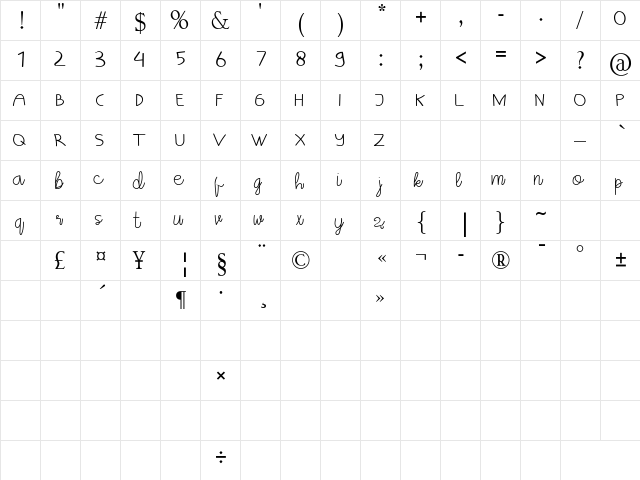
Sappire Regular
Design Context for Sappire Typeface
Sappire takes a measured approach to typography — its balanced proportions and neutral character make it a reliable workhorse for both digital and print work.